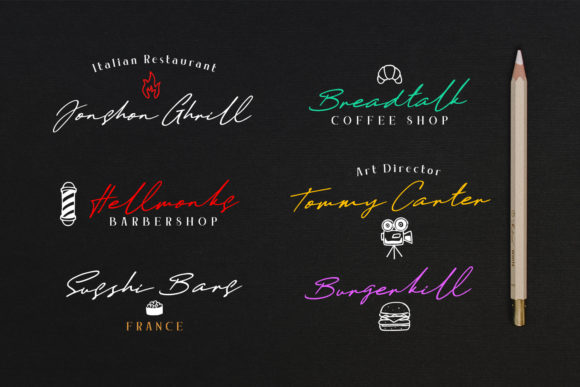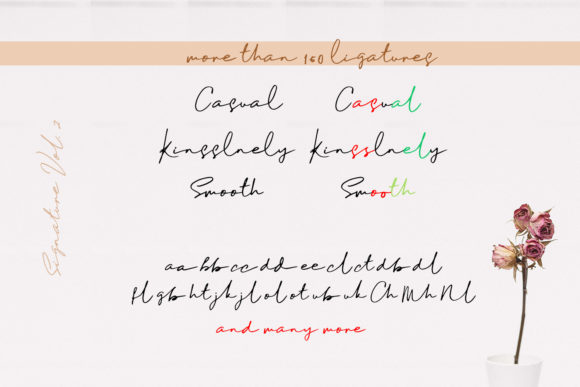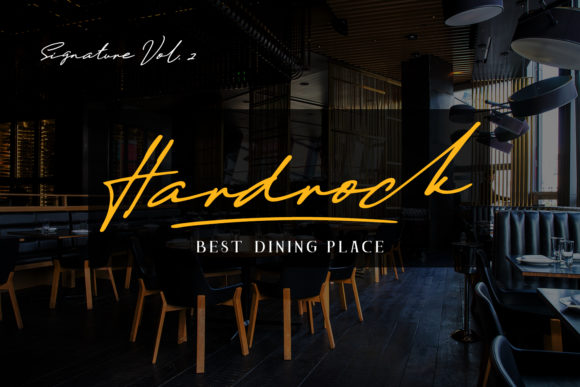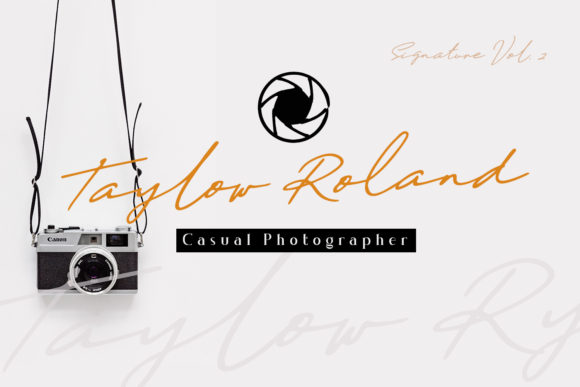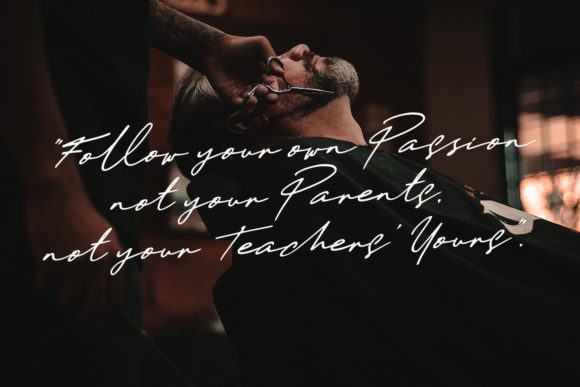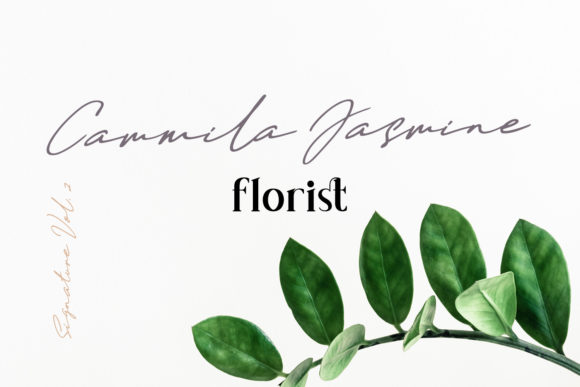
Introducing Daniels Font: Elevate Your Designs with a Touch of Elegance
Are you a designer or crafty enthusiast looking for a font that can add a touch of sophistication and handmade charm to your projects? Look no further than Daniels Font, a stunning signature font that is sure to take your designs to the next level. In this article, we’ll dive into the features and benefits of Daniels Font, and explore how it can be used to create beautiful and eye-catching designs.
What is Daniels Font?
Daniels Font is a gorgeous signature font that is designed to add a natural, handmade style to your designs. With its elegant and refined aesthetic, Daniels Font is perfect for a wide range of applications, from poster designs and book covers to merchandise, fashion campaigns, newsletters, advertising, magazines, greeting cards, album covers, and more!
Key Features of Daniels Font
So, what sets Daniels Font apart from other fonts on the market? Here are just a few of its key features:
- 170+ Ligatures: Daniels Font includes an impressive 170+ ligatures, which allow you to create unique and beautiful connections between letters. This feature adds a level of sophistication and elegance to your designs, setting them apart from the rest.
- Handmade Style: Daniels Font has a distinctly handmade feel, which makes it perfect for designers and crafty enthusiasts who want to add a personal touch to their projects.
- Versatility: Whether you’re working on a poster design, book cover, or merchandise, Daniels Font is the perfect choice. Its versatility ensures that it will look great in a wide range of applications.
Benefits of Using Daniels Font
So, why should you choose Daniels Font for your next design project? Here are just a few benefits of using this stunning font:
- Elevate Your Designs: With Daniels Font, you can add a touch of elegance and sophistication to your designs, taking them to the next level.
- Save Time: With its extensive range of ligatures, Daniels Font saves you time and effort, allowing you to focus on other aspects of your design.
- Stand Out from the Crowd: Daniels Font is a unique and distinctive font that will help your designs stand out from the crowd. Whether you’re working on a personal project or a client’s brief, this font is sure to impress.
How to Use Daniels Font
Using Daniels Font is easy! Here are a few tips to get you started:
- Pair it with Other Fonts: Daniels Font looks great when paired with other fonts. Try combining it with a bold font for a striking contrast.
- Experiment with Ligatures: With over 170 ligatures to choose from, don’t be afraid to experiment and find the perfect combination for your design.
- Use it for Headings and Titles: Daniels Font is perfect for headings and titles, where its elegant and refined aesthetic can really shine.
In conclusion, Daniels Font is a stunning signature font that is sure to elevate your designs and add a touch of elegance and sophistication. With its extensive range of ligatures, handmade style, and versatility, this font is perfect for a wide range of applications. Whether you’re a designer or crafty enthusiast, Daniels Font is a must-have font that will take your designs to the next level.